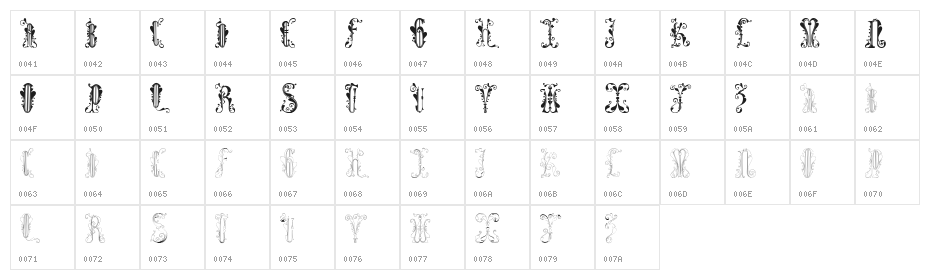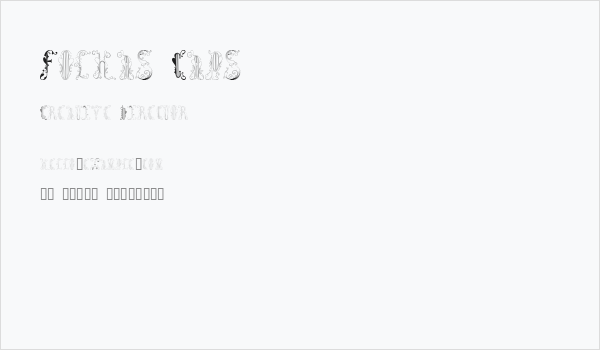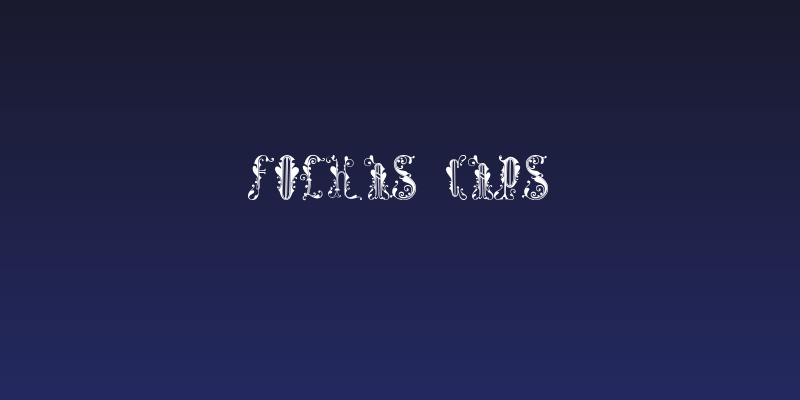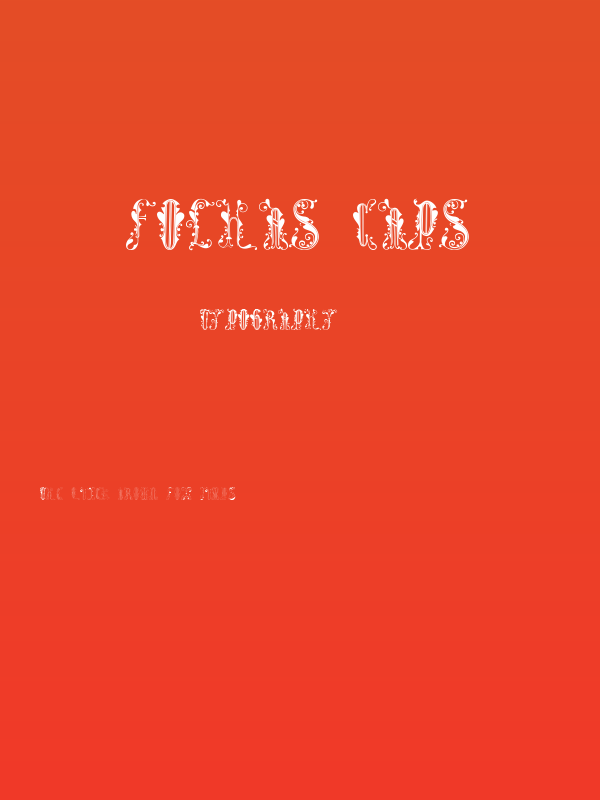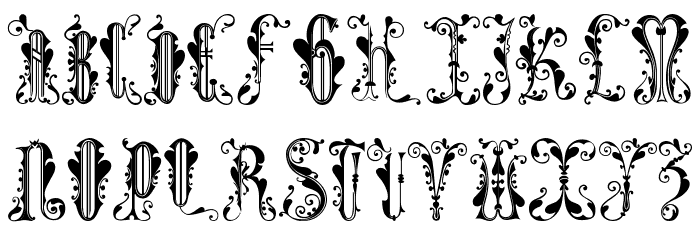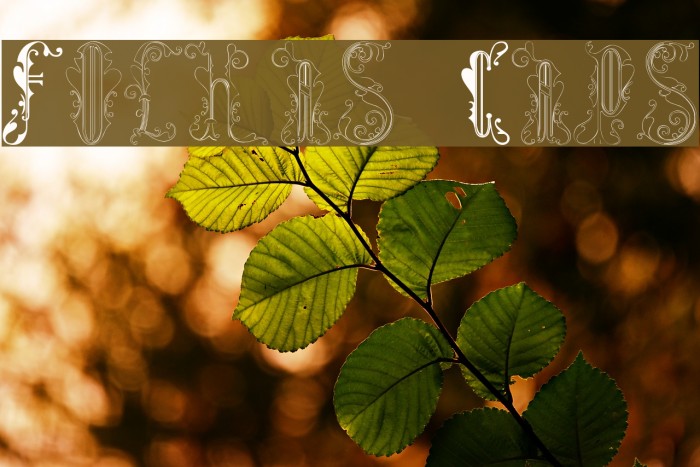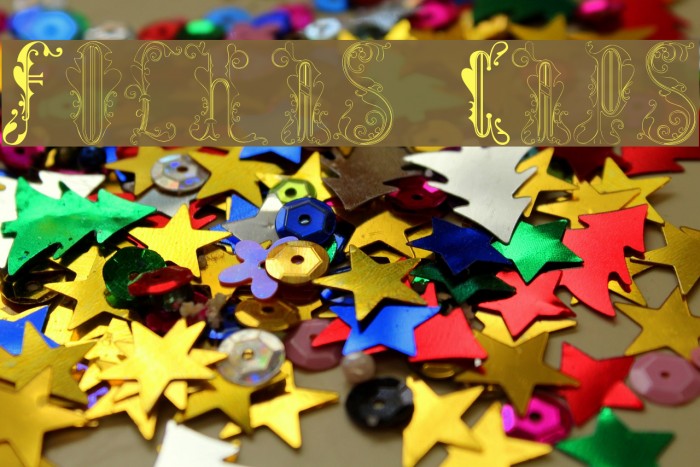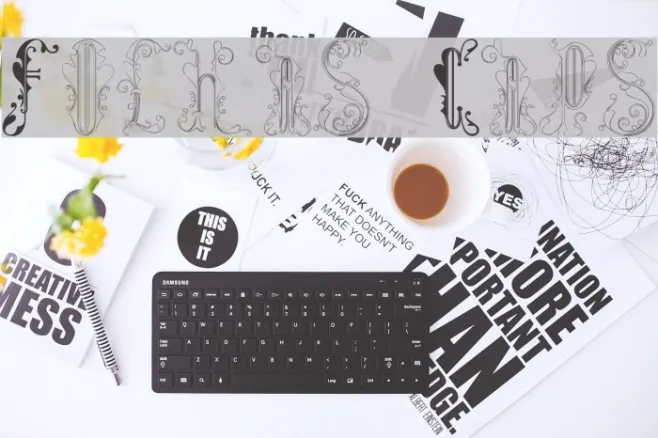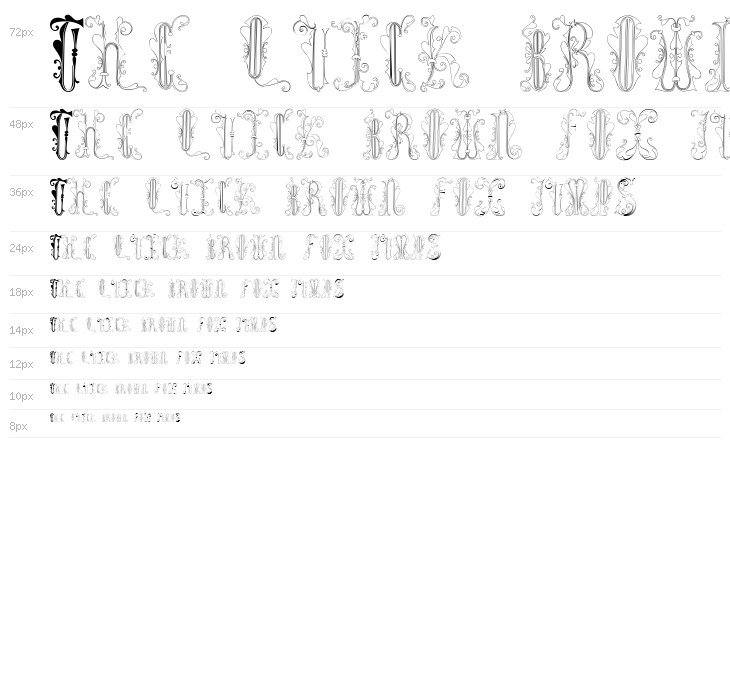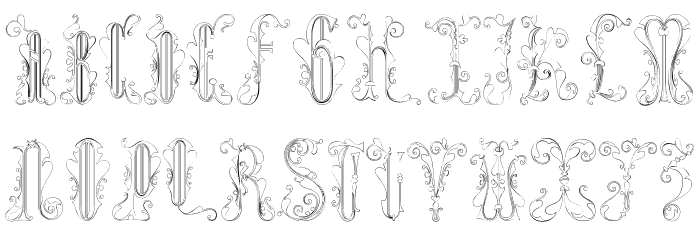
Folhas Caps Font
Folhas Caps Description
This font features an intricate and decorative style, characterized by elaborate flourishes and ornate details that give it a highly artistic appearance. Each letter is adorned with swirling embellishments, creating a sense of elegance and sophistication. The design is reminiscent of vintage calligraphy, with a modern twist that makes it suitable for contemporary applications. The uppercase and lowercase letters maintain a consistent decorative theme, while the numbers and special characters are equally embellished, ensuring a cohesive look across all elements. The font's unique style makes it ideal for projects that require a touch of luxury and creativity.
| Proposed Projects | Ideal for wedding invitations, luxury branding, artistic posters, and decorative headlines. |